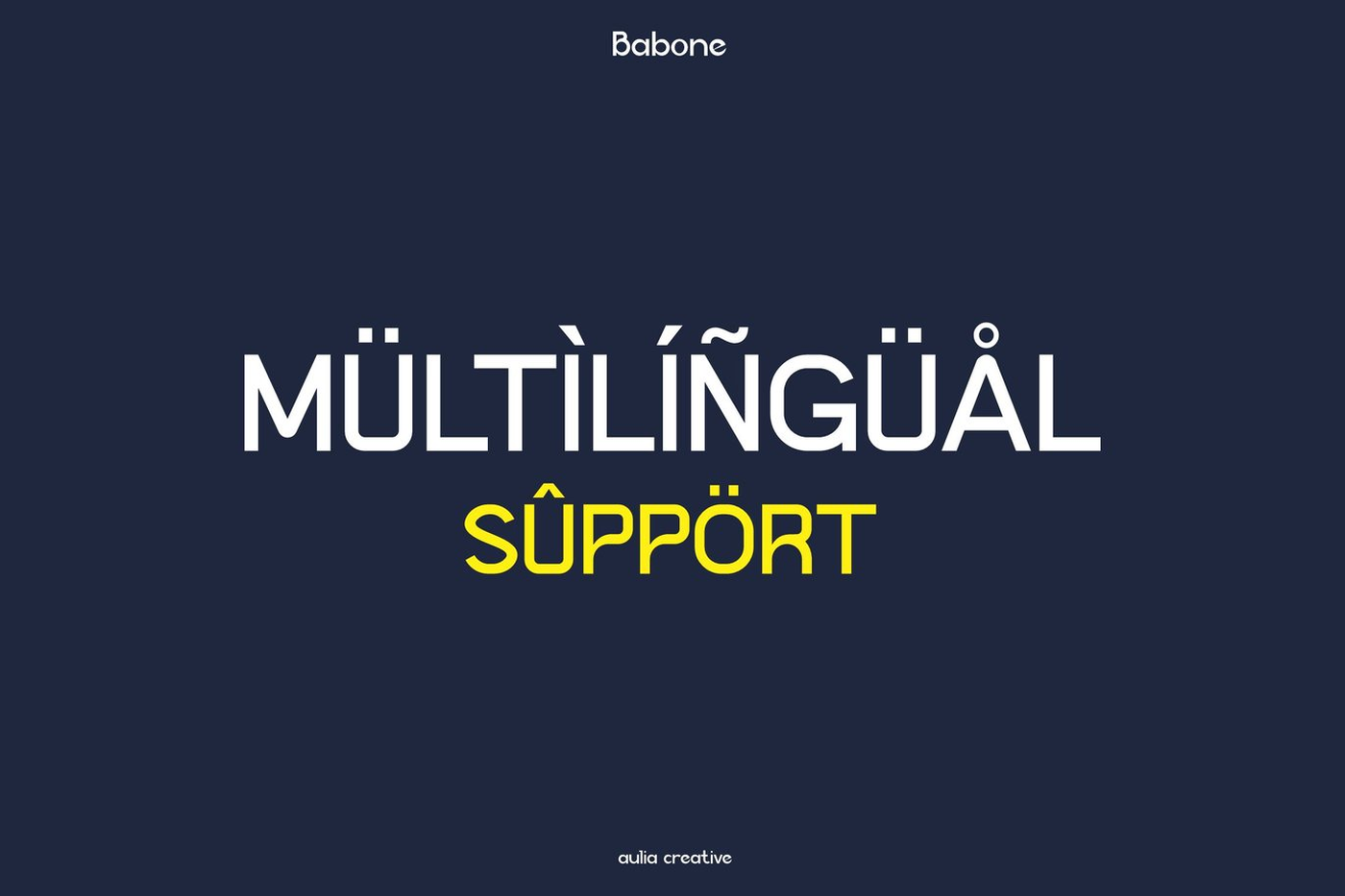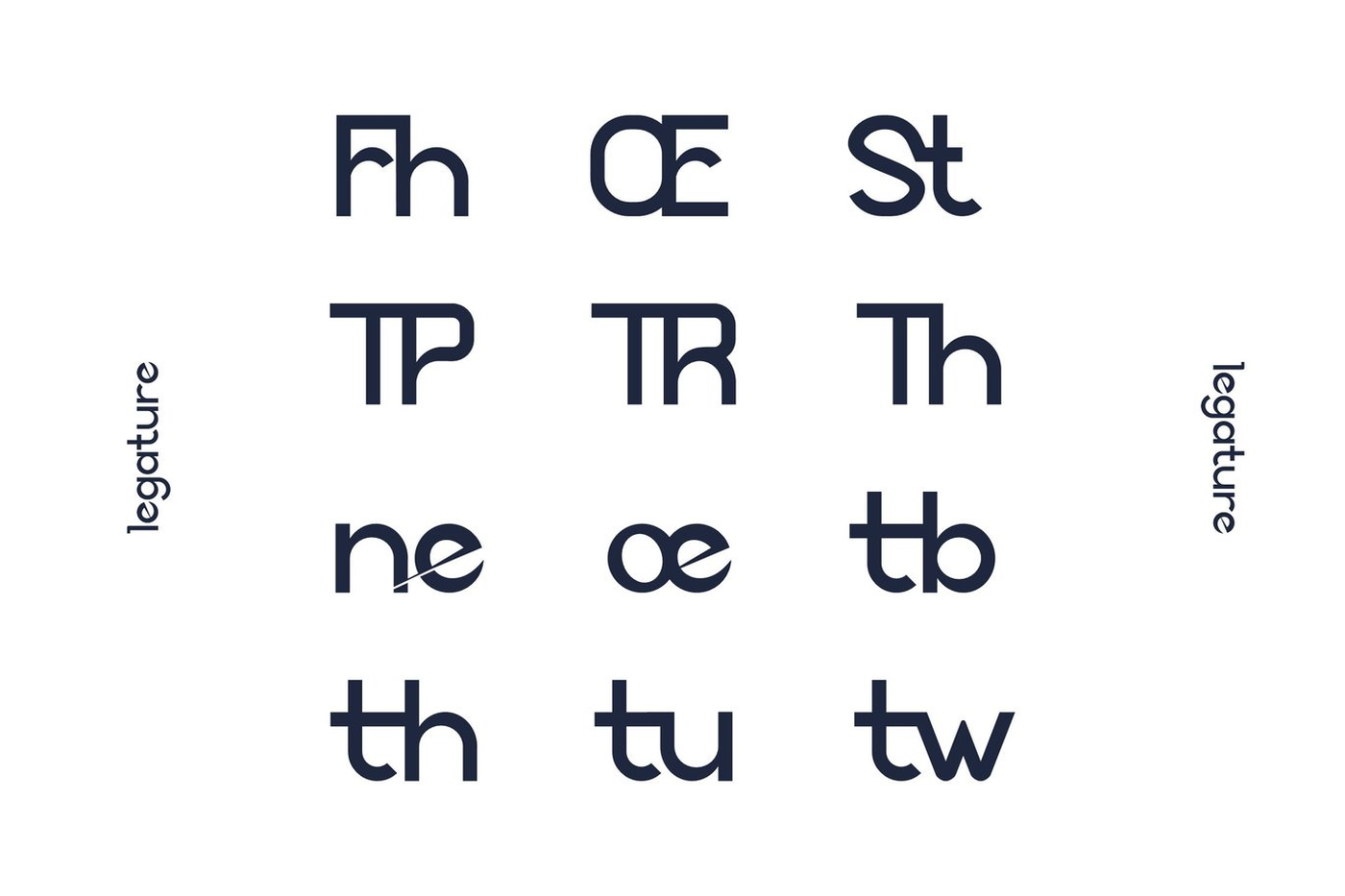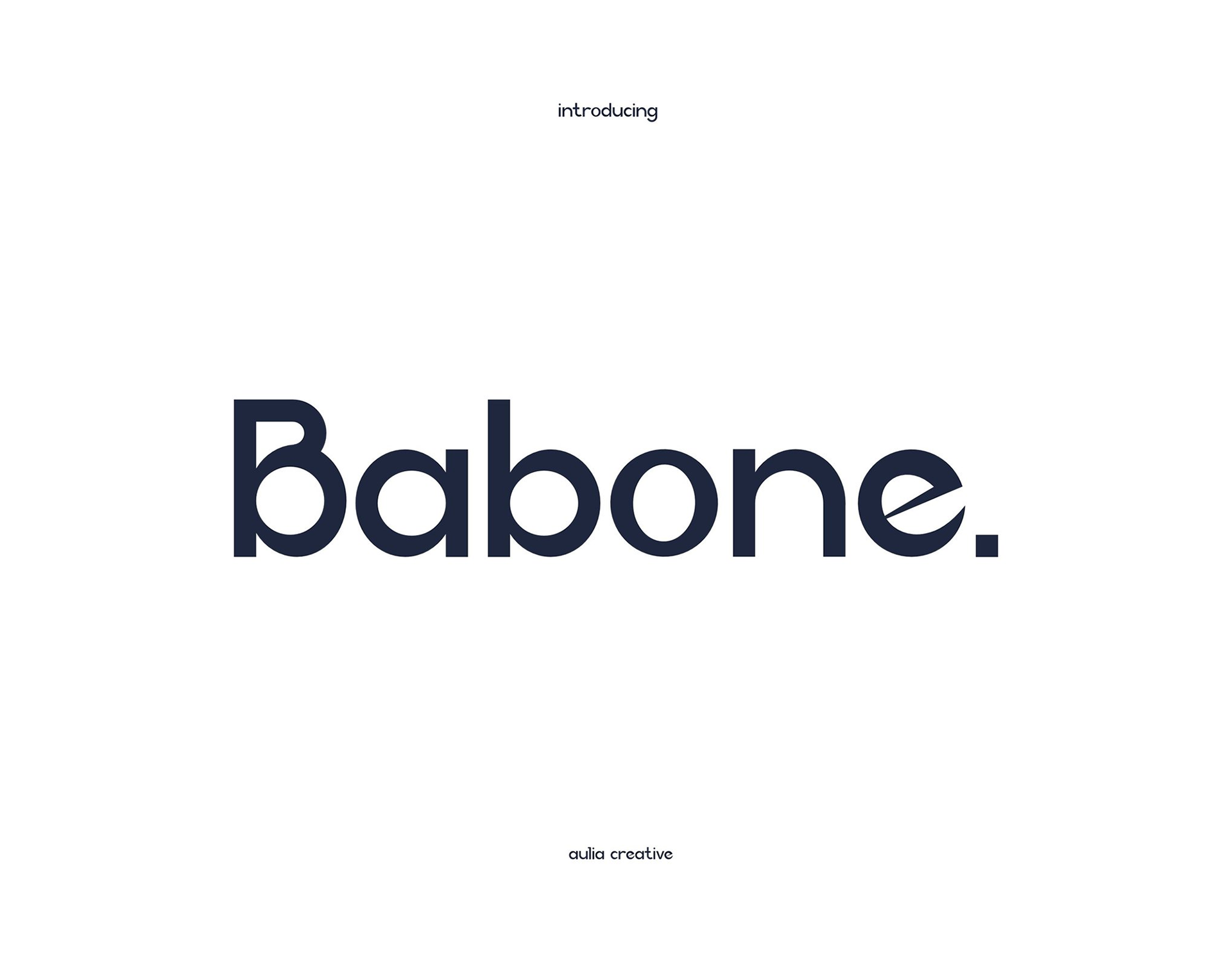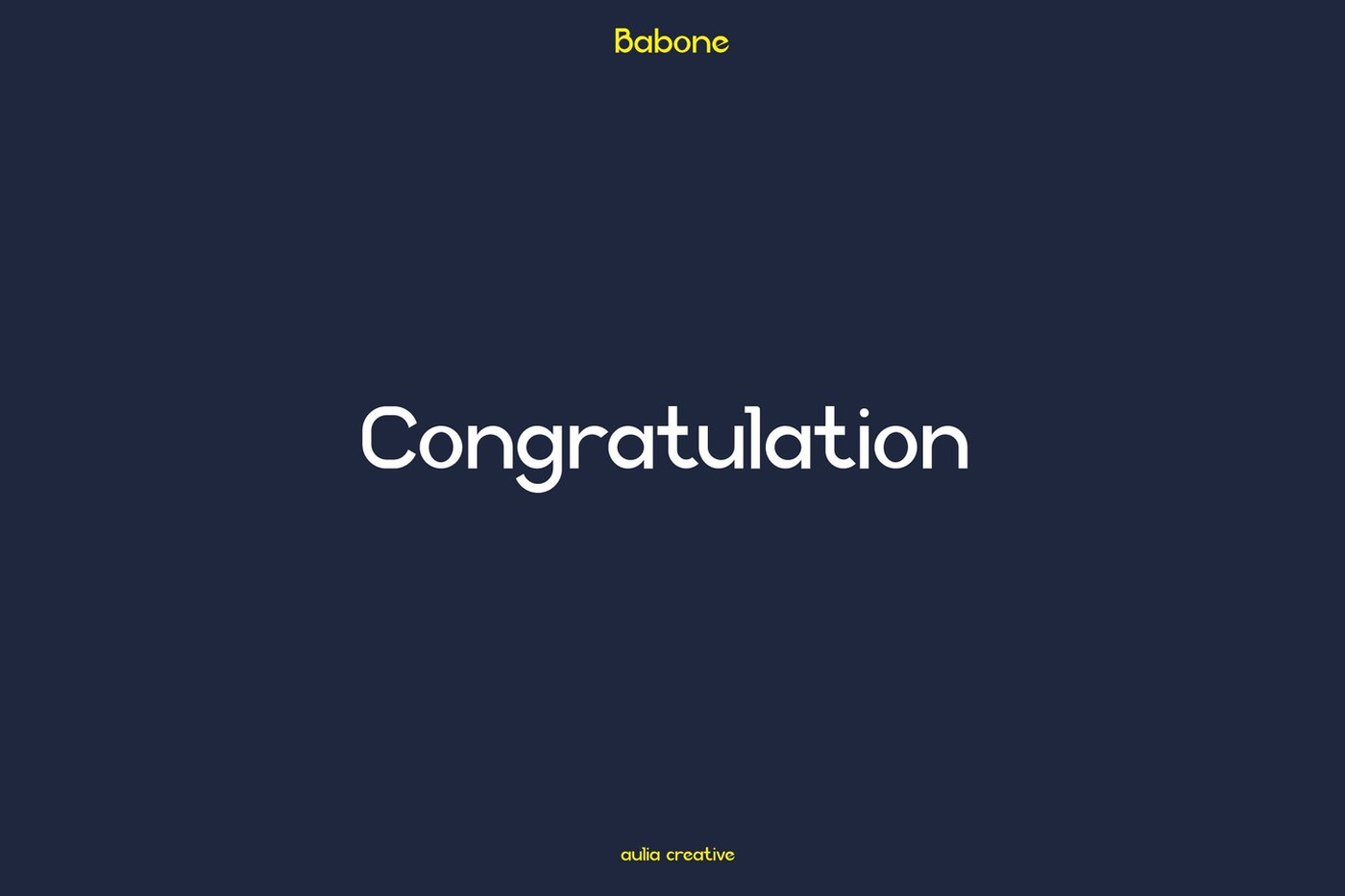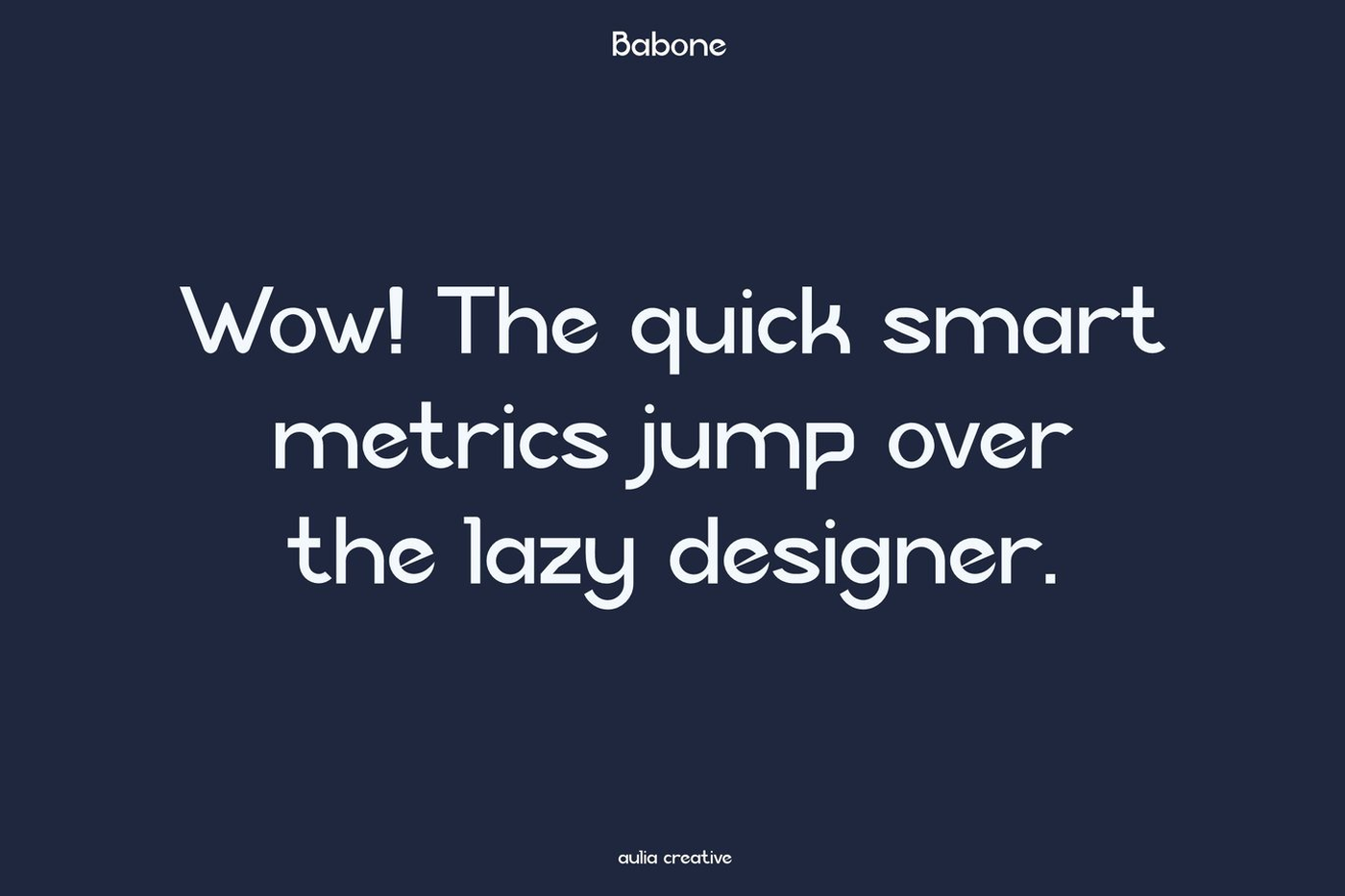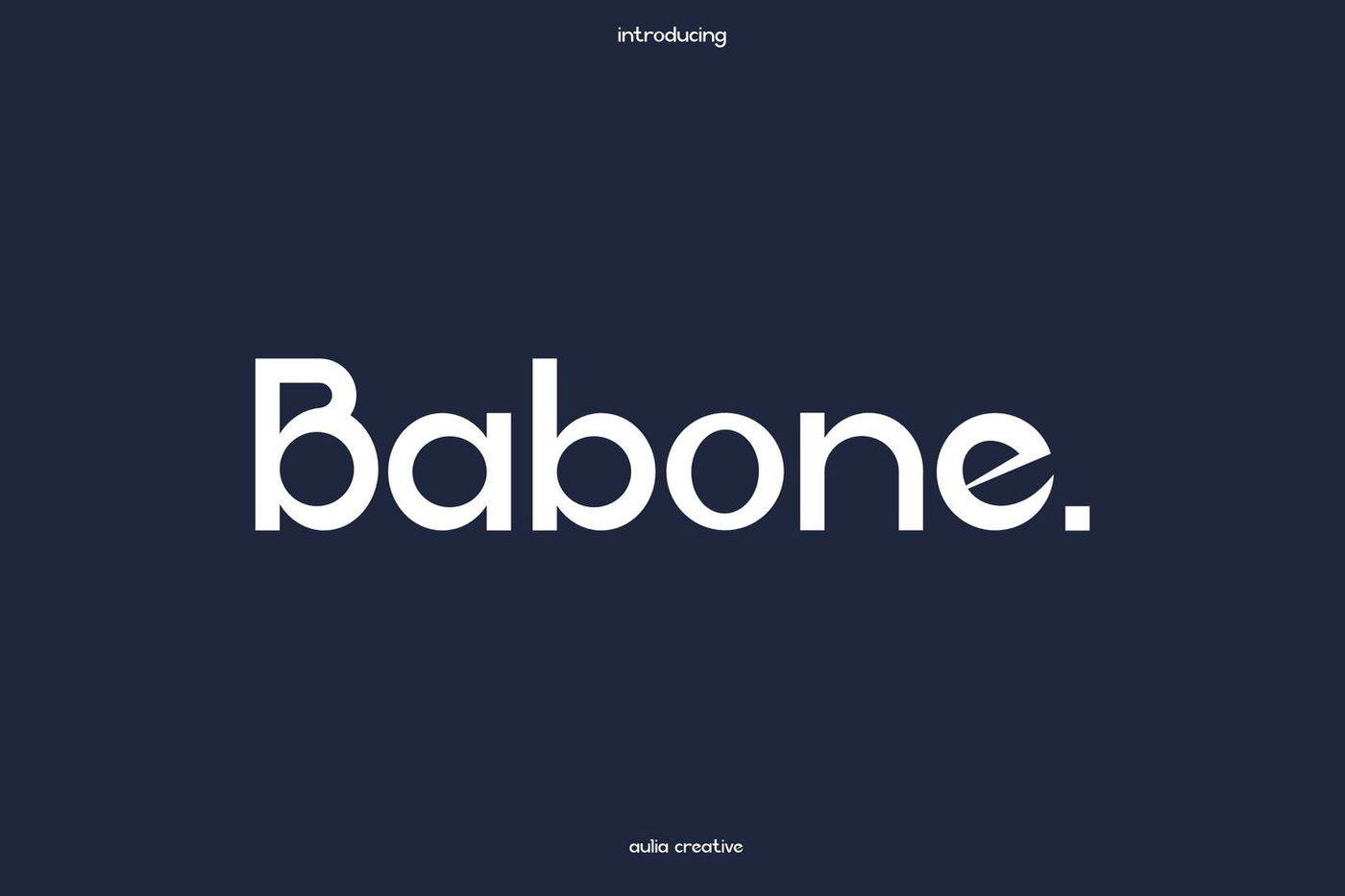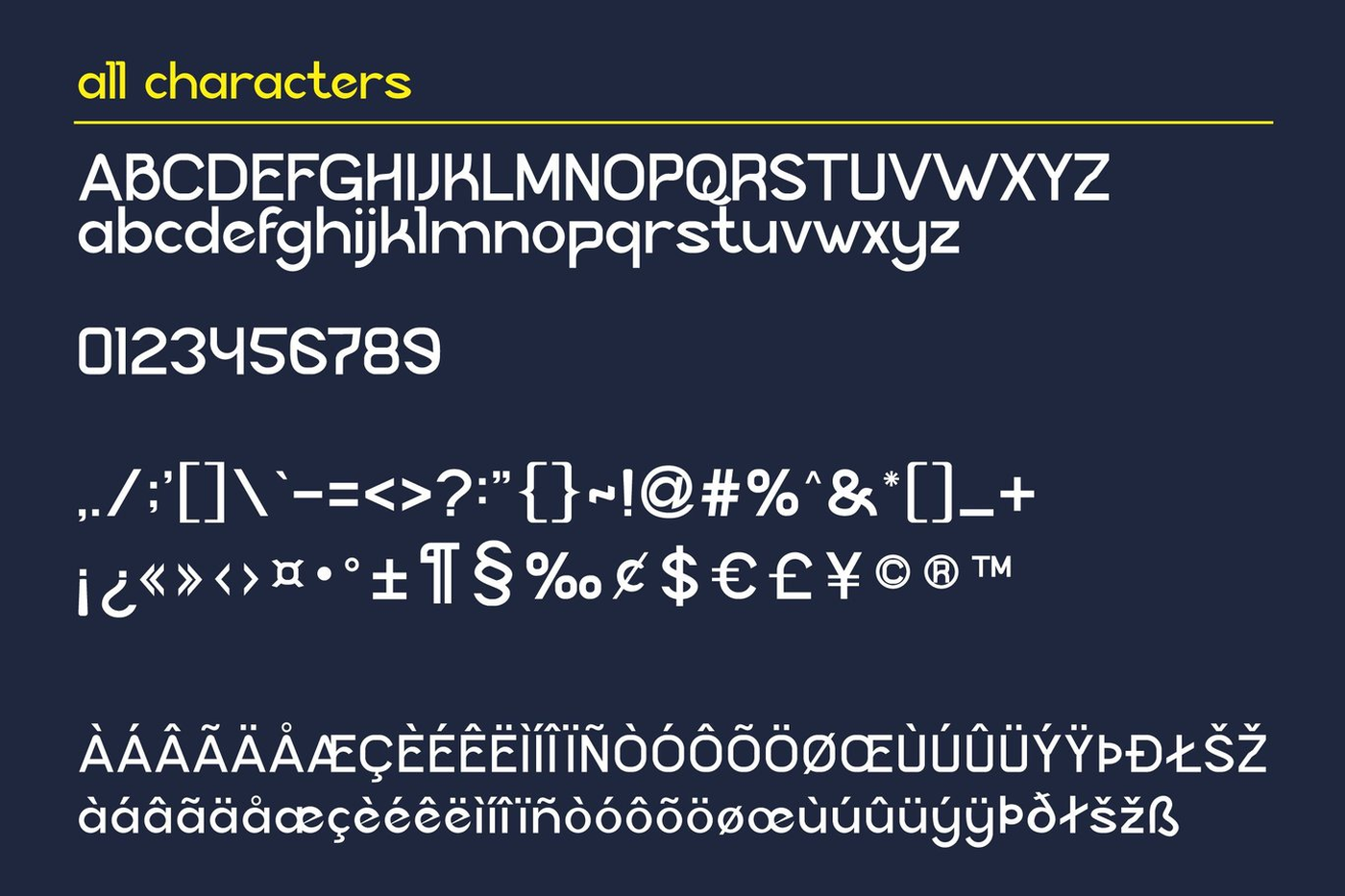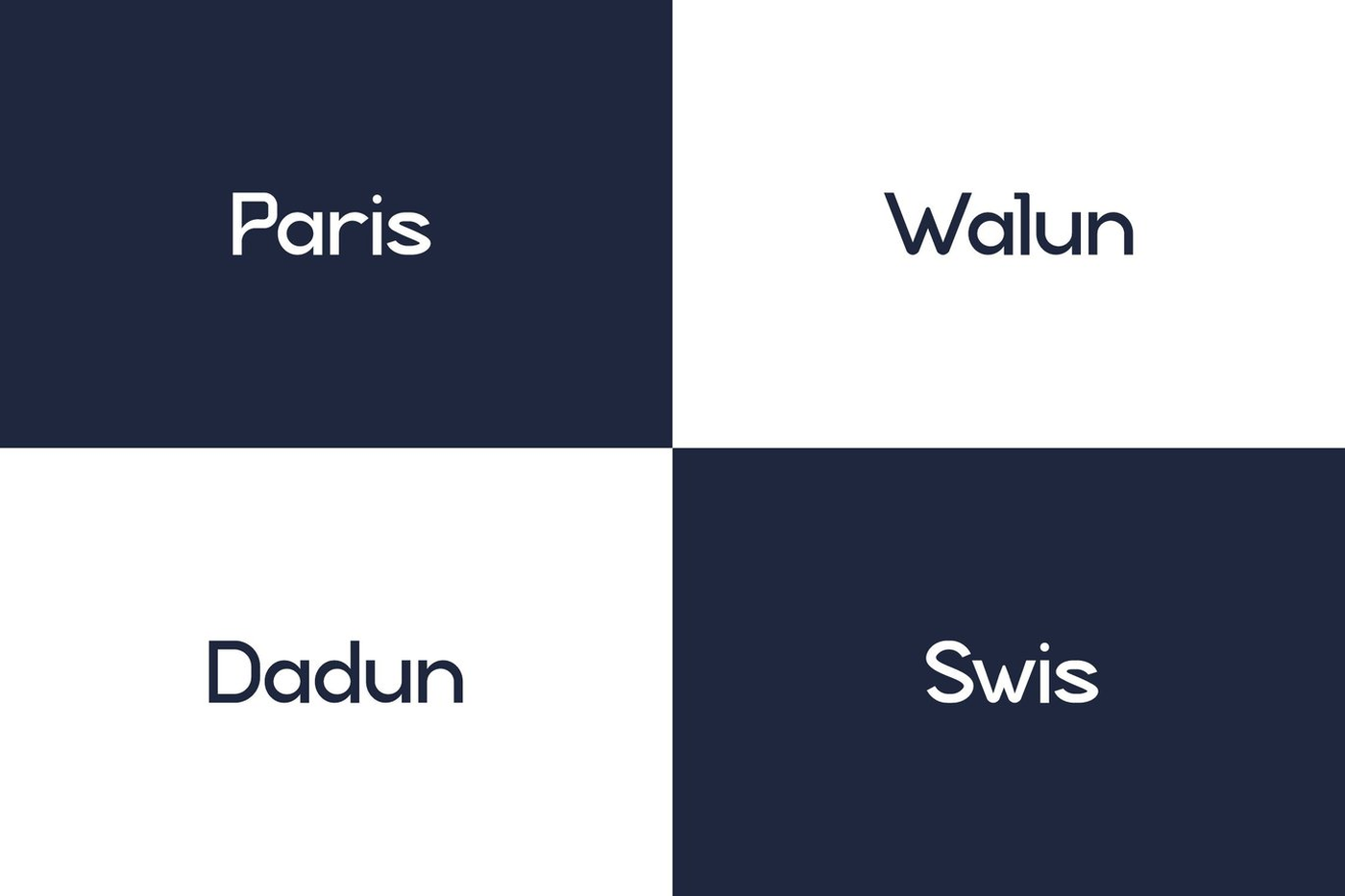
Babone - Sans Serif Font
Babone - Sans Corporate Font Display Font Logo is and awesome and authentic display font.
Babone - Sans Serif Font
Babone is an awesome and authentic display font.